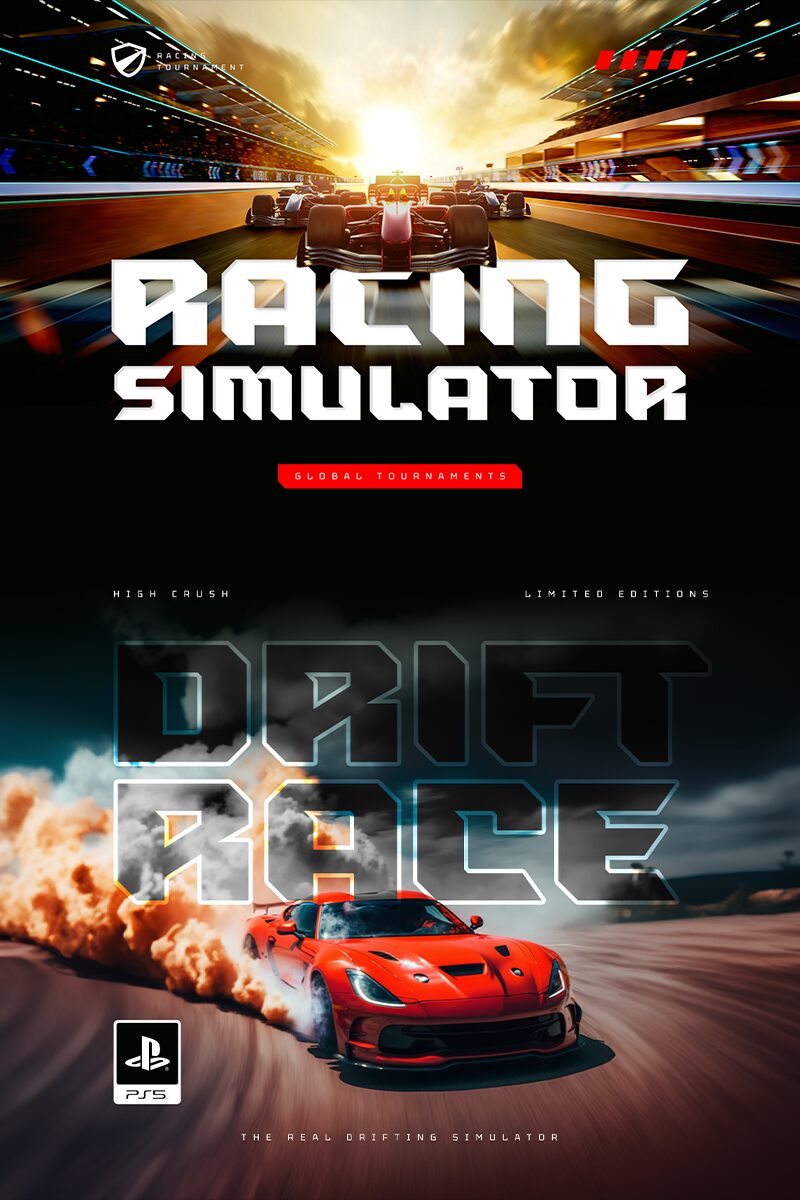
High Crush
High Crush font by Namara Creative is a free bold futuristic display font that channels a techno-sport attitude. Its slabby, faceted strokes and razor-cut notches create a chiseled, machine-milled texture, while tight spacing packs a heavy punch in short headlines. The rhythm feels fast and forward—diagonals bite, verticals hit clean, and every form looks engineered for motion.
Using High Crush, titles snap into place for esports branding, racing posters, gym campaigns, sneaker drops, tech event graphics, and game covers. This free font thrives at large sizes where its bevels and angled joints read crisp and assertive. Pair it with a neutral geometric sans for supporting text, and give the tracking a touch of breathing room for extra impact.